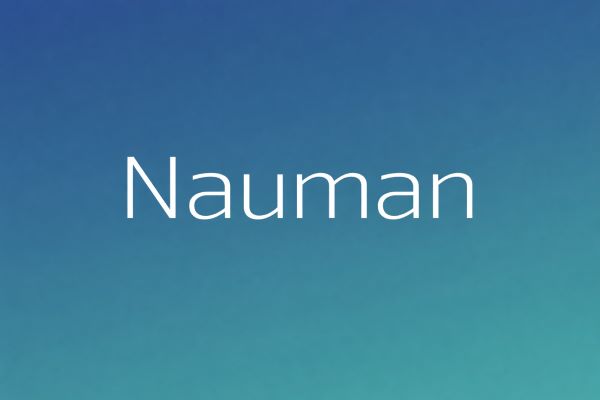
Nauman Font
Nauman Font is a Sans Serif Font by The Northern Block built around clean minimalist structure, balanced proportions, and a refined character that brings clarity and professionalism to any design it enters. Its neutral, contemporary aesthetic works effortlessly across a wide range of applications without ever overpowering the layout around it.